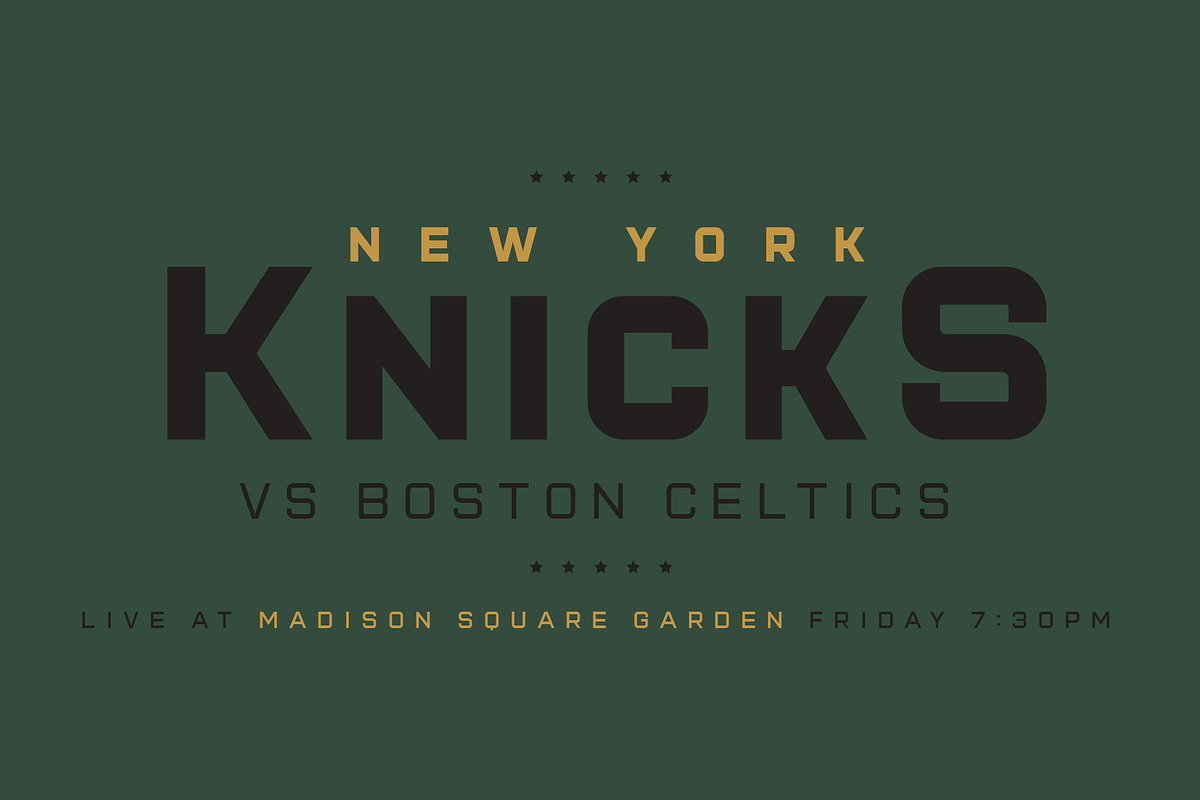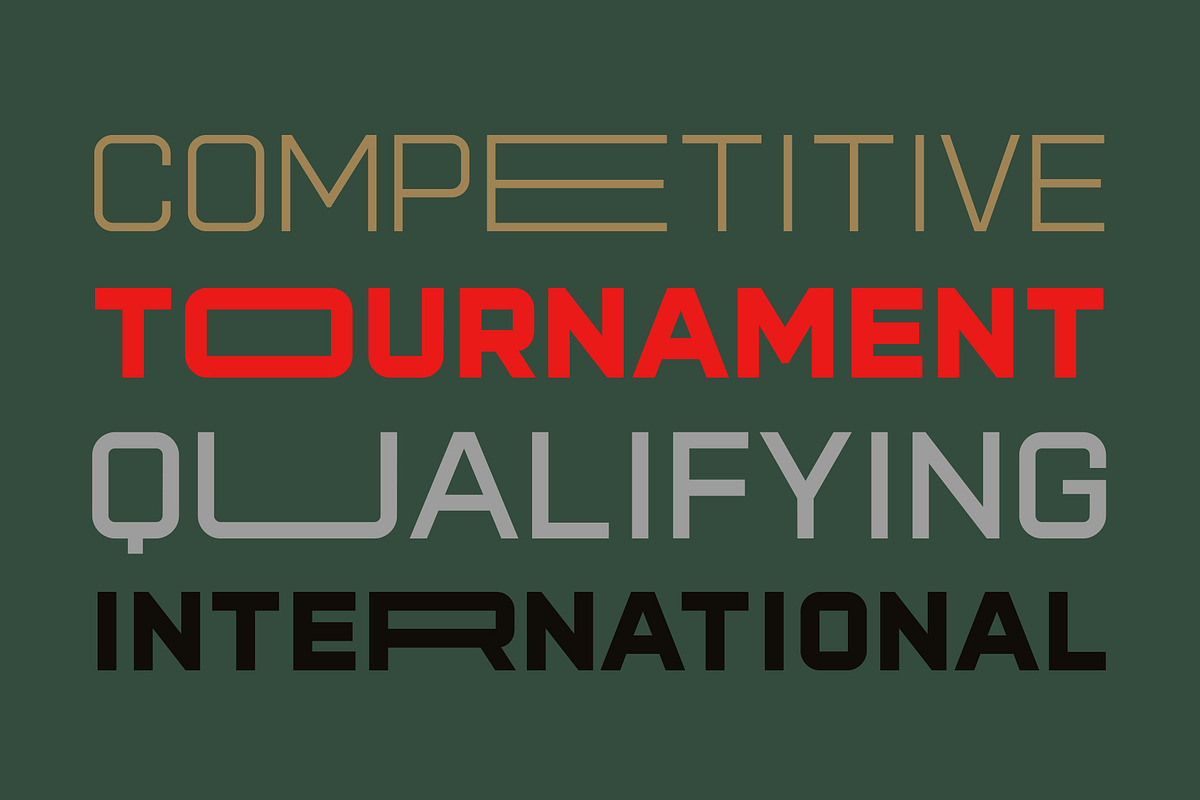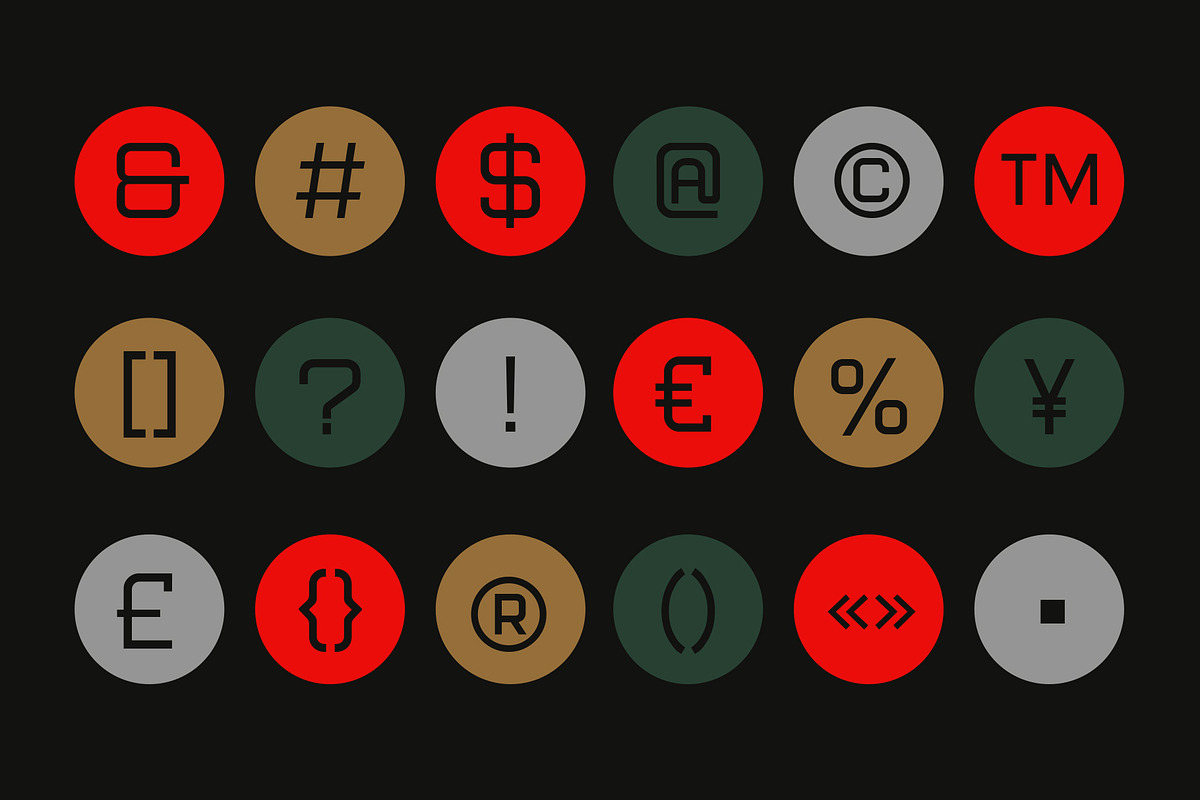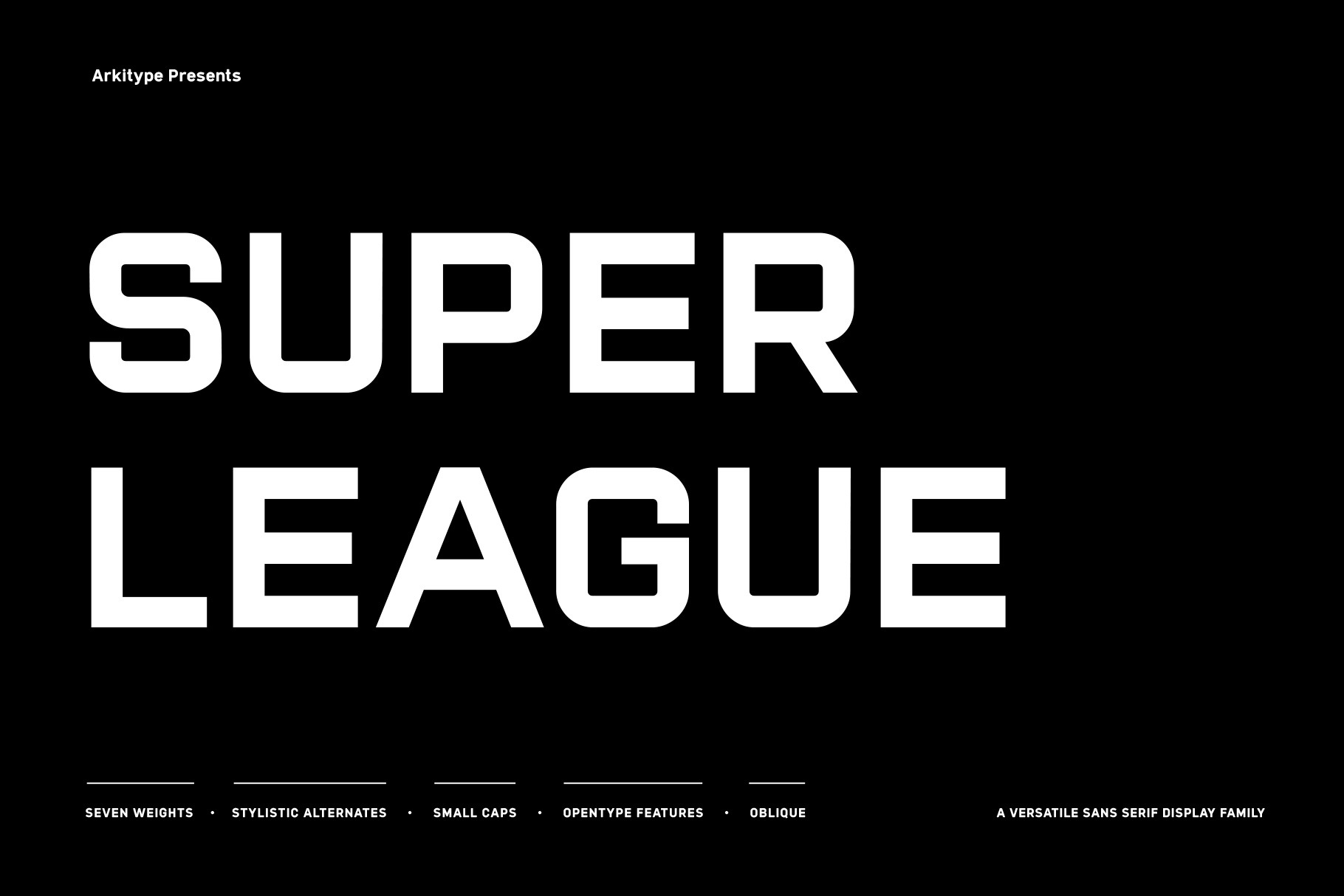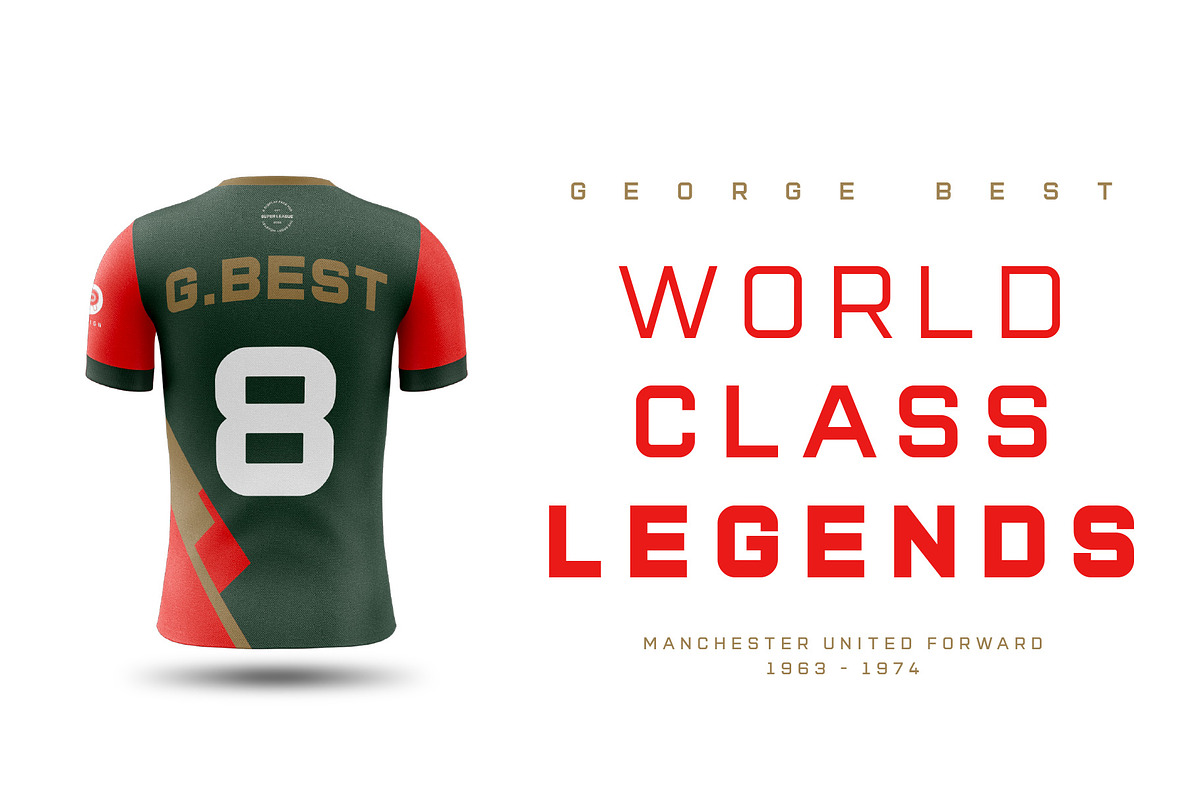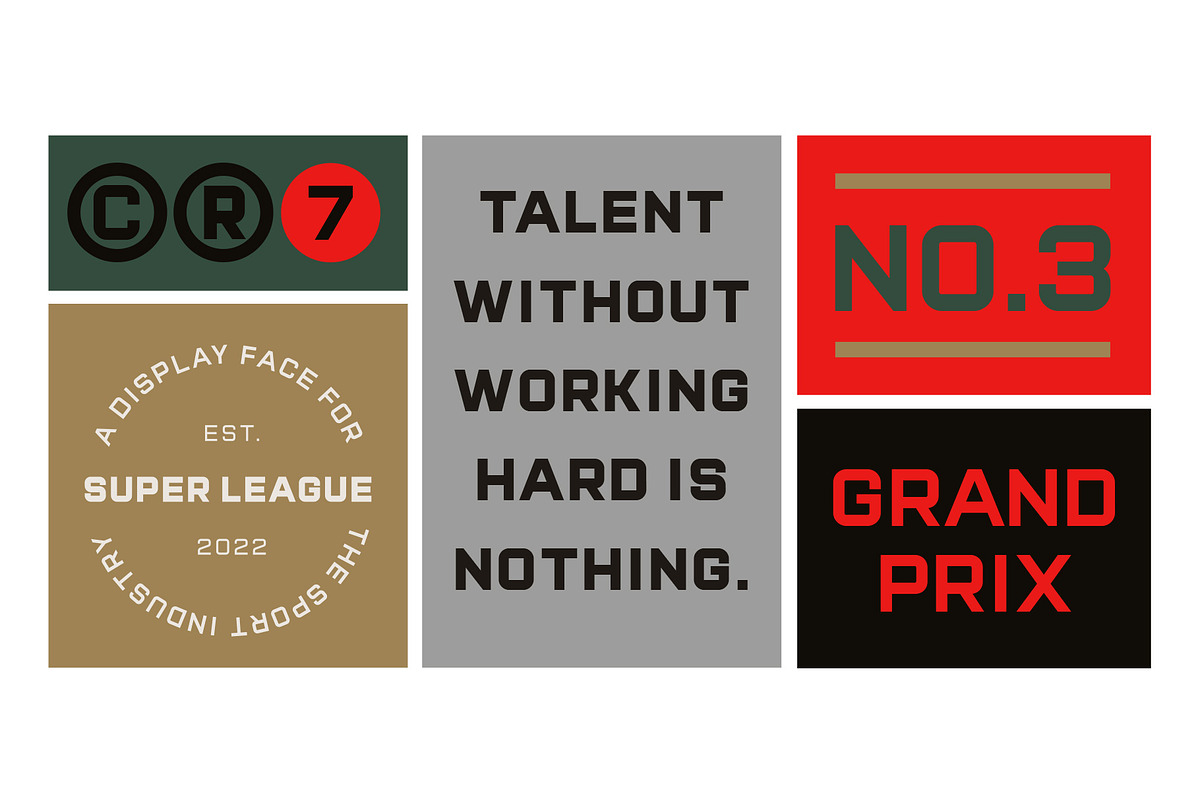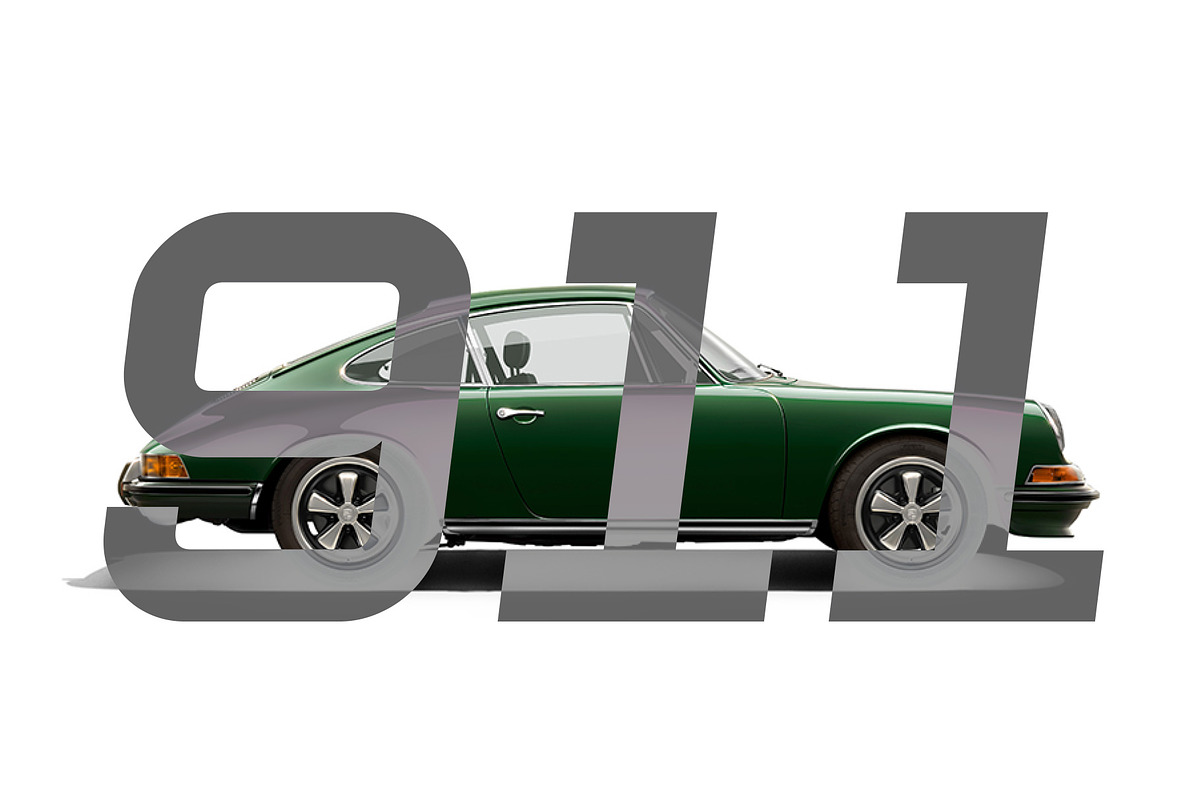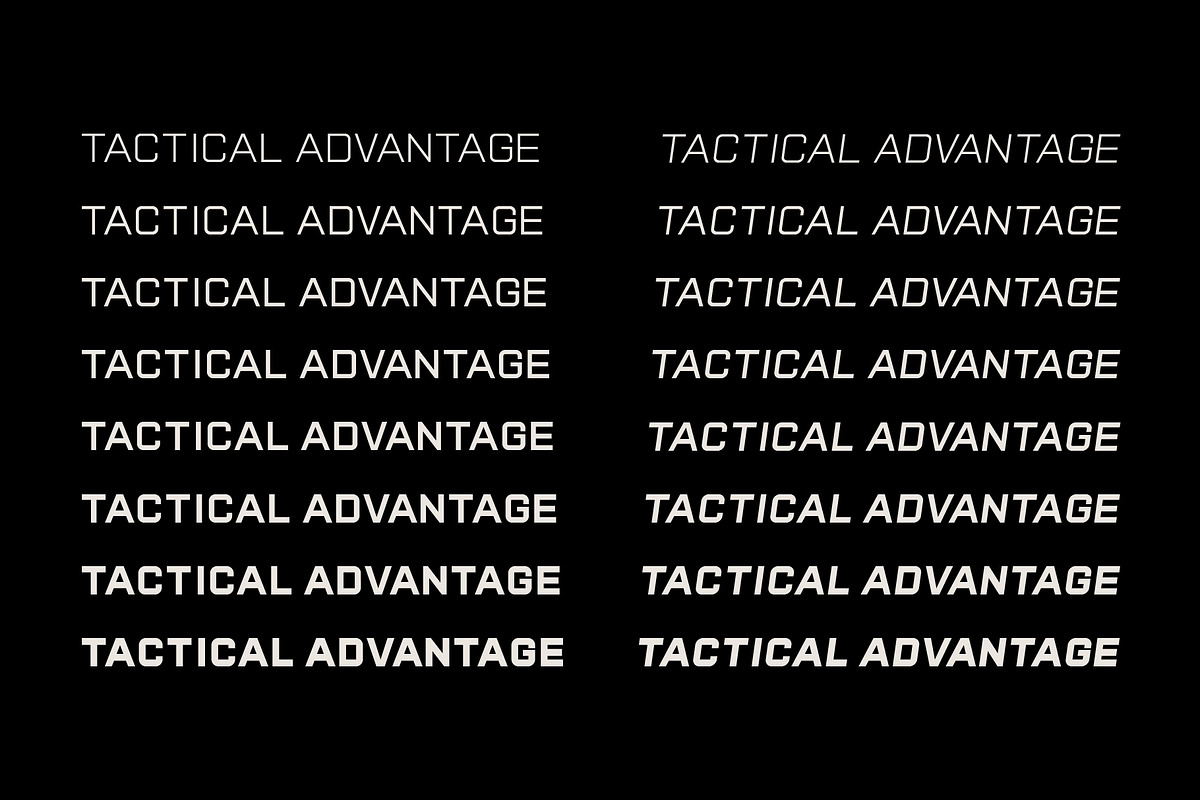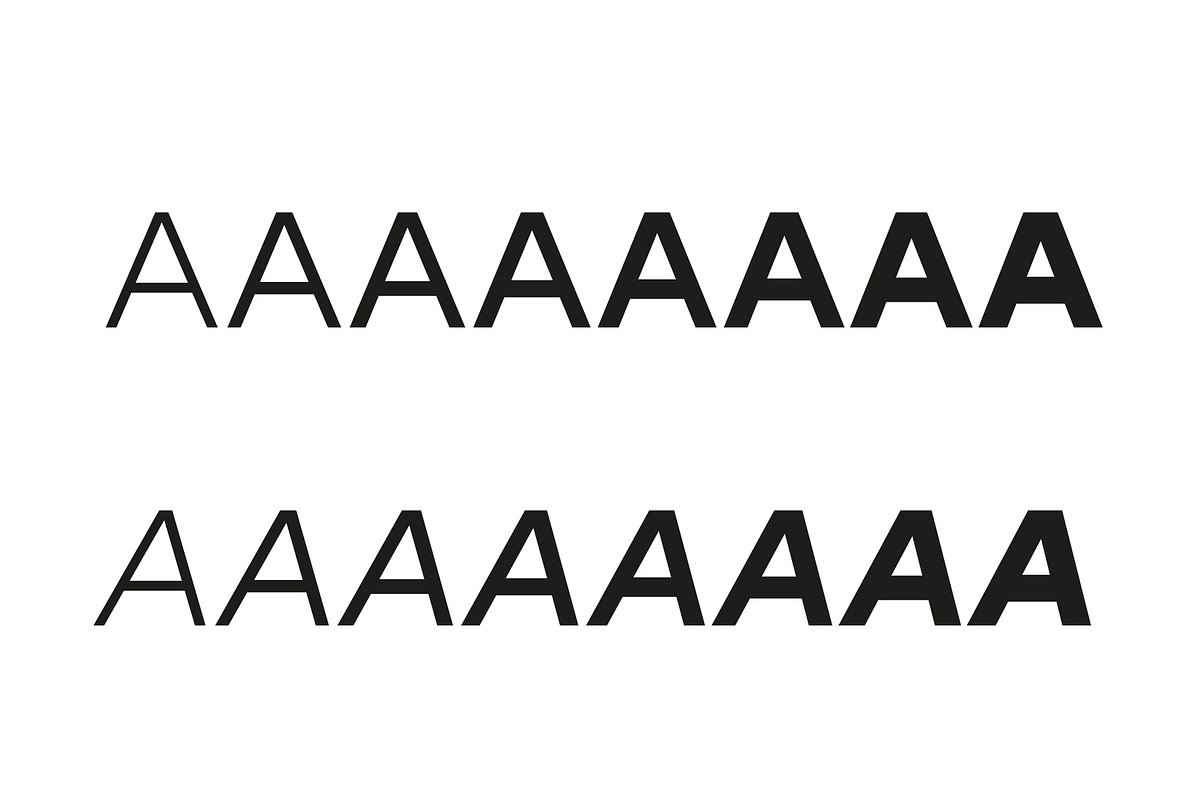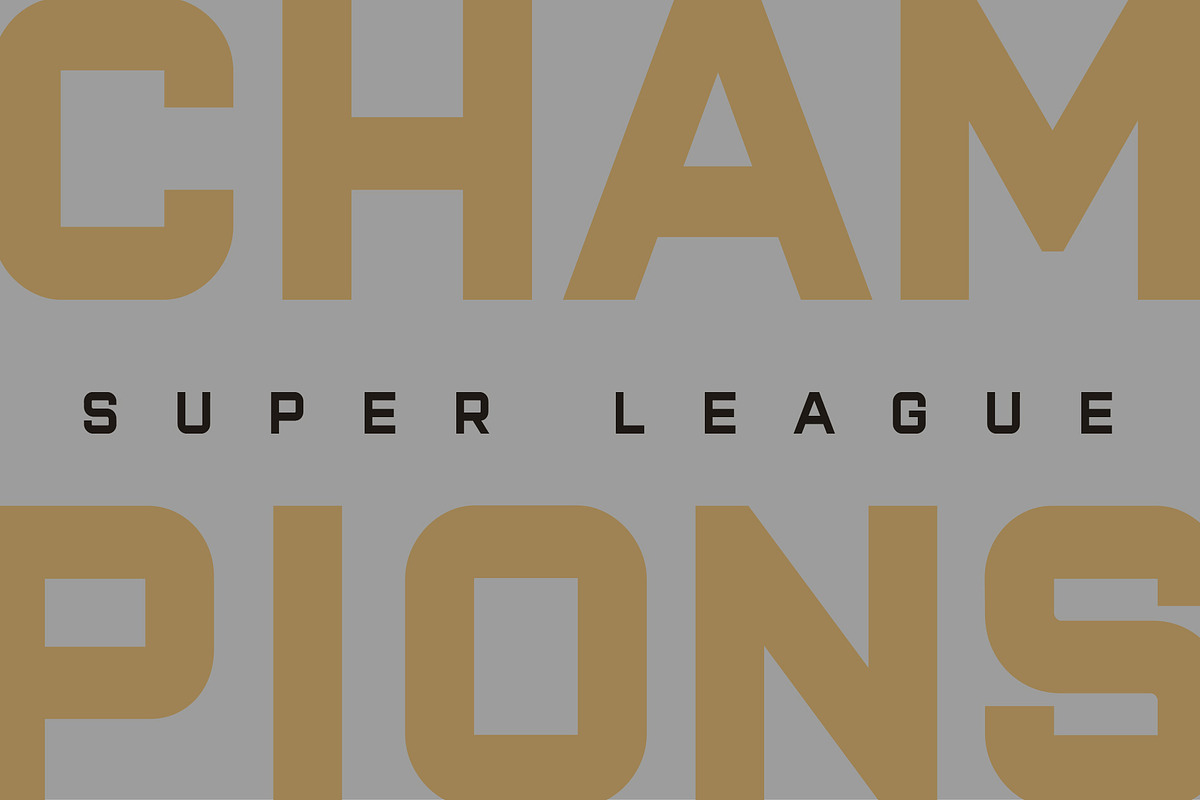
Super League Typeface
Super League is a display typeface created for the sports industry. The typeface itself doesn't lean too much in a particular sports category direction which makes it versatile in use across various sporting categories.
Super League has loads of. options to make use of including; small caps, stylistic alternates, ligatures for vs, st, nd, rd and th that are very useful when handling typography for sports in particular. Use Super League in all your printed material or on screen. Create badges or print names and numbers sports kits.